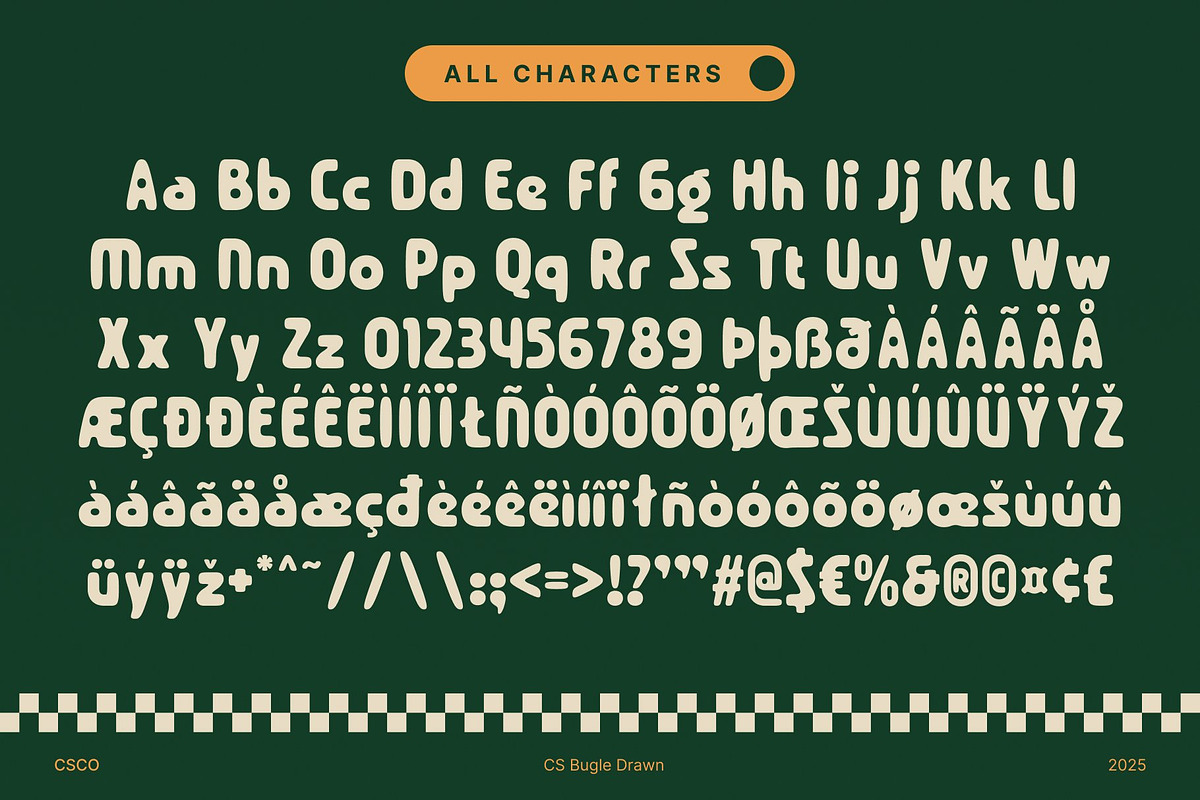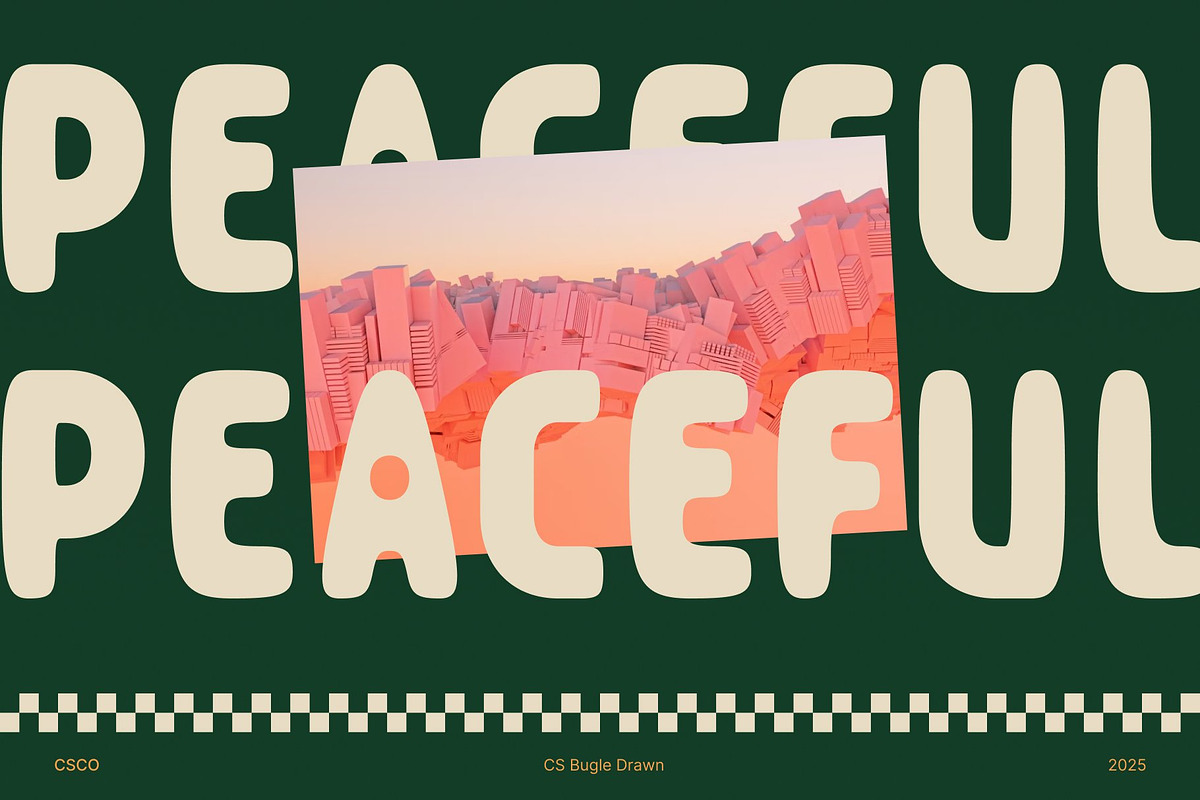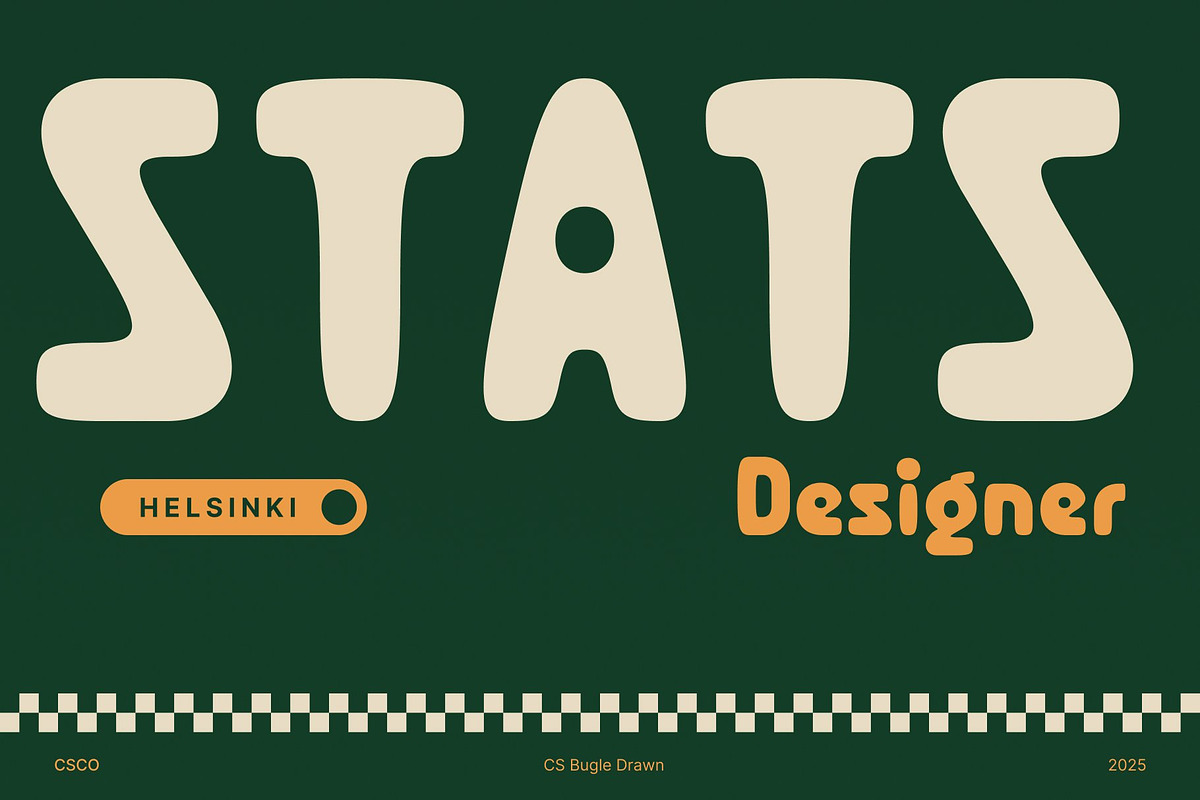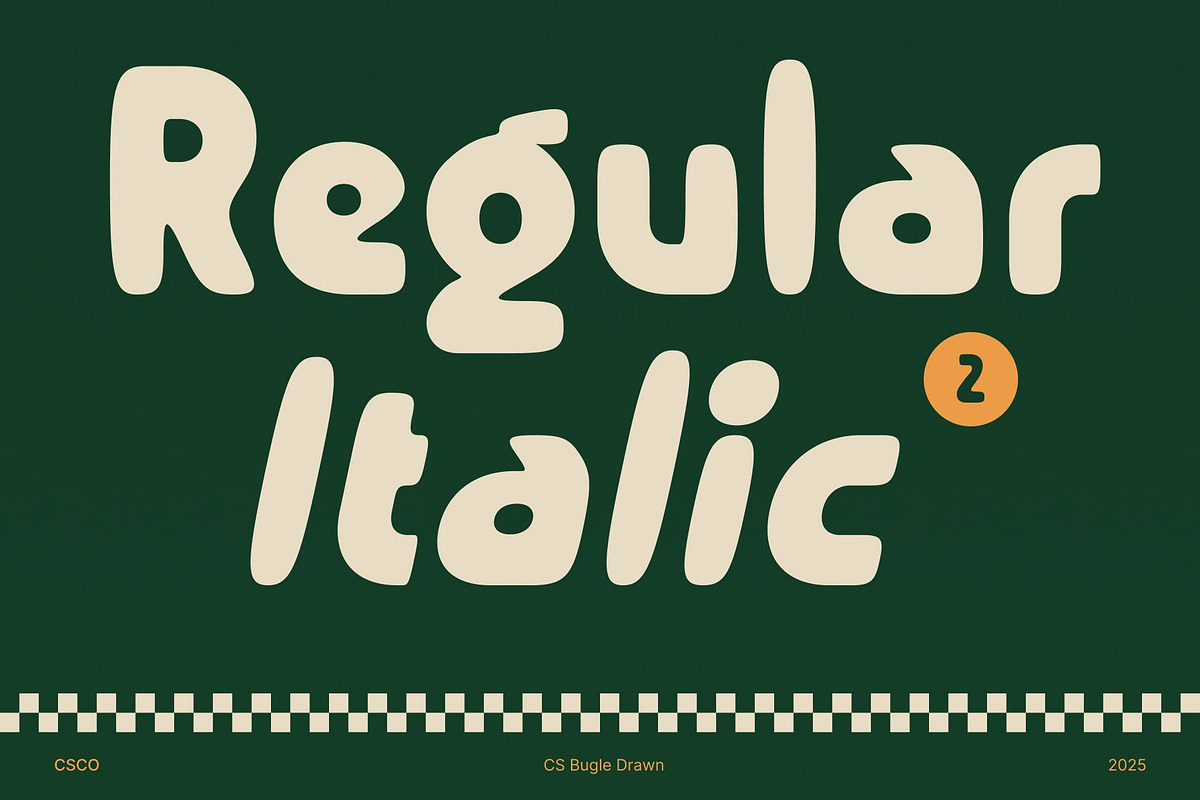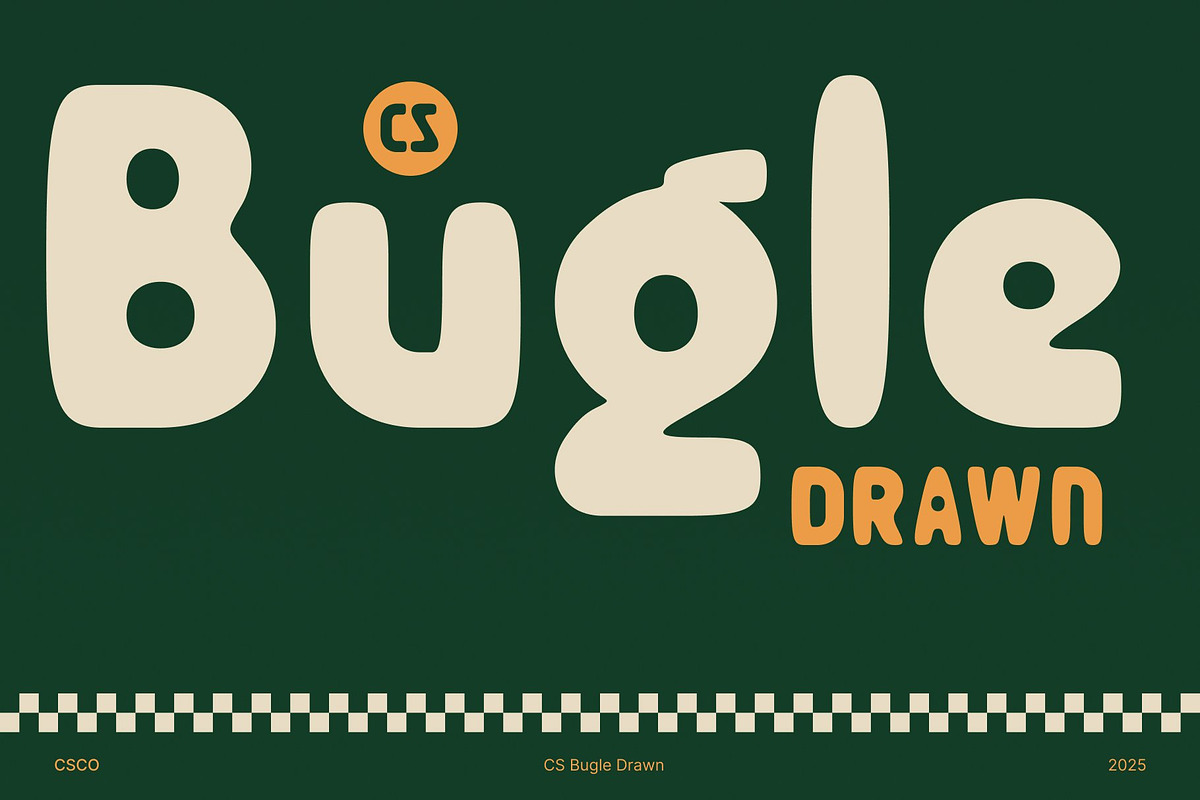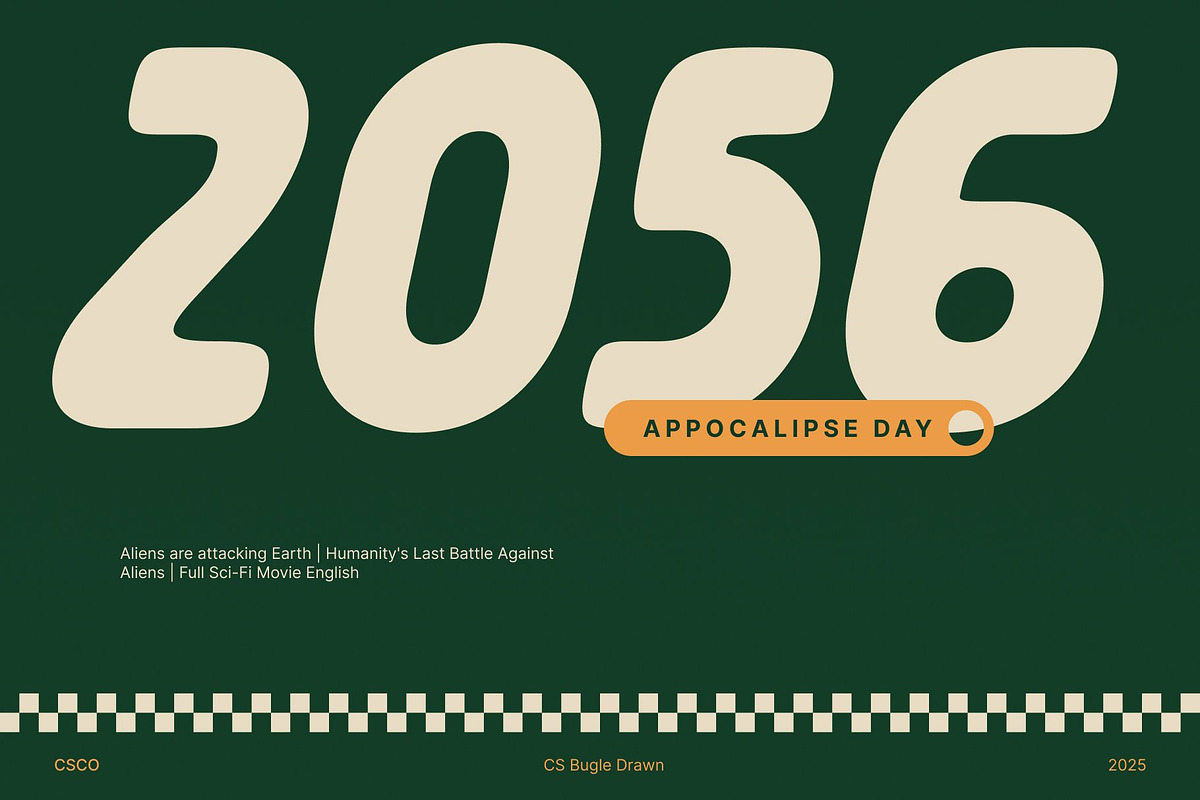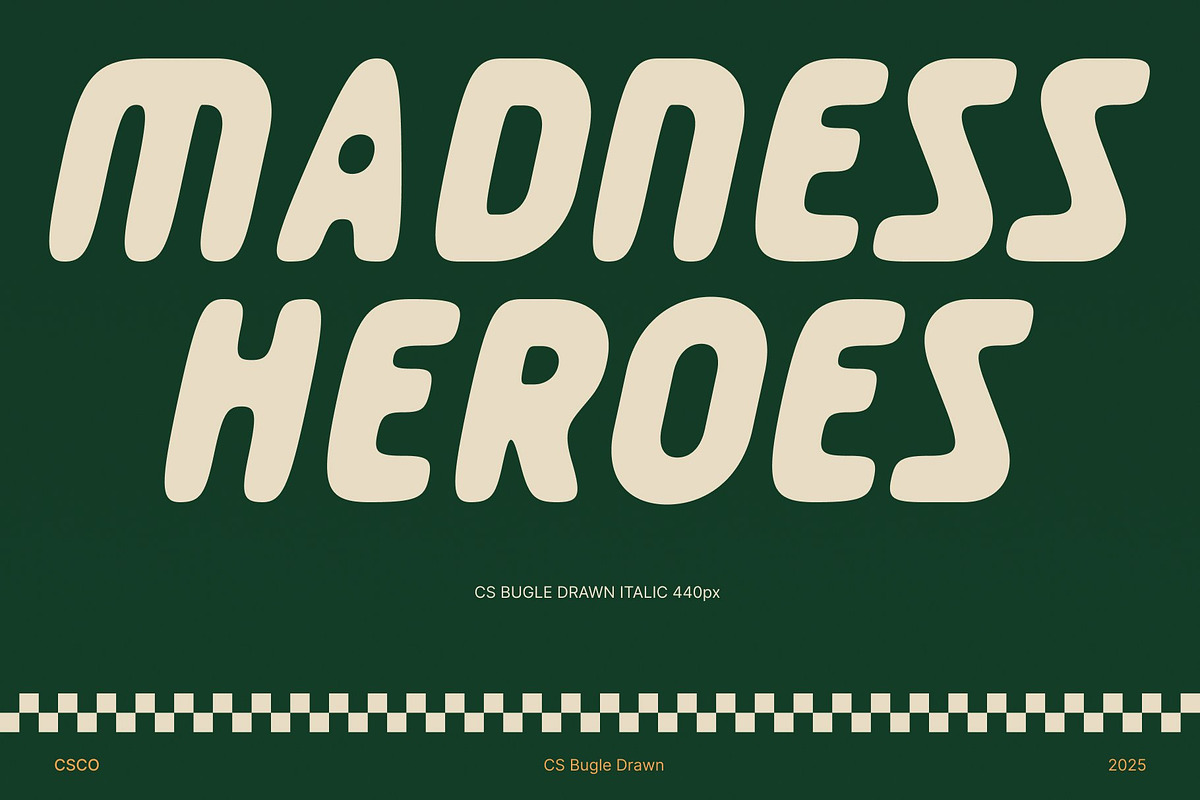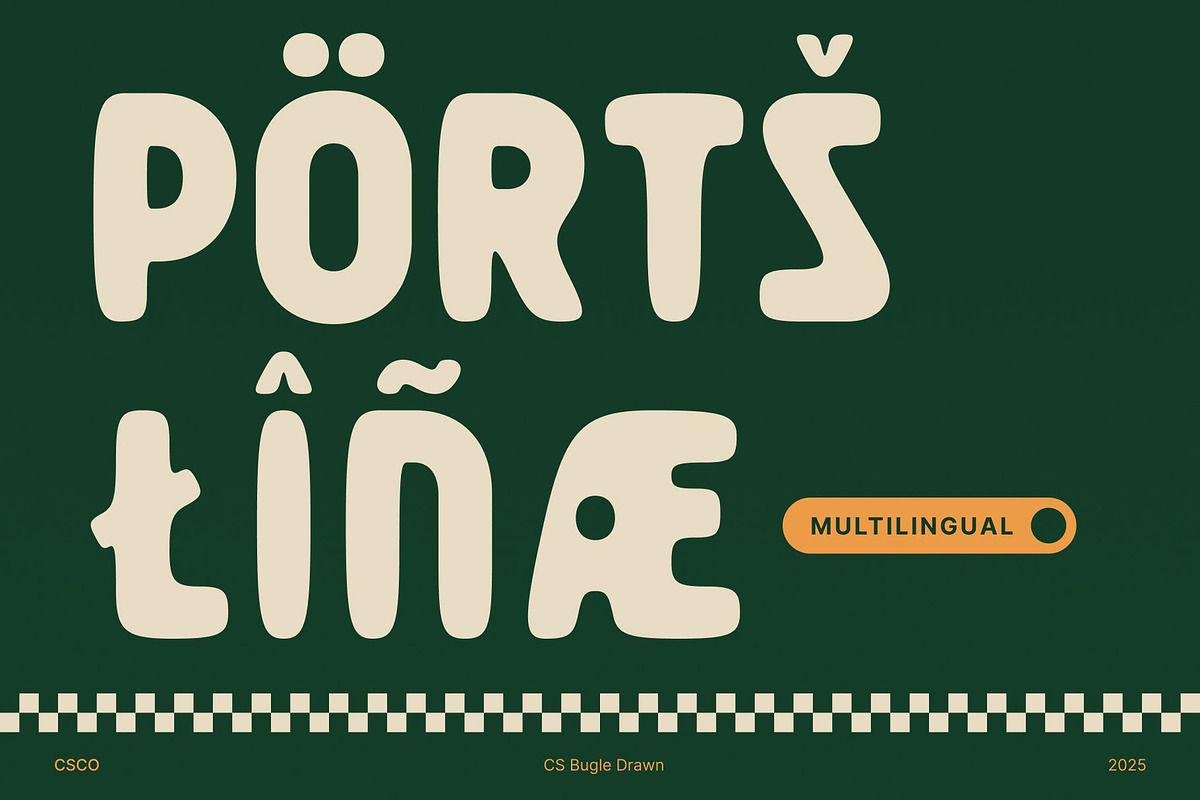
CS Bugle Drawn
CS Bugle Drawn – Bold Strength with Artistic Energy
Hand-Drawn Display Font for Maximum Impact This is a bold display sans serif crafted to make a powerful statement. Its solid, confident letterforms demand attention, while the hand-drawn effect infuses each shape with expressive texture and artistic warmth.
Strong Forms with Creative Character Blending bold geometry with handcrafted imperfection, this font creates a perfect balance between strength and personality. The subtle drawn details give it a human touch, turning a classic sans serif structure into something dynamic and full of energy.
Versatile for Modern Visual Design With its striking presence and natural flow, this font works beautifully across various design contexts. It adapts effortlessly to bold headlines, creative branding, and poster layouts that call for a handcrafted yet modern appeal.
Perfect for Branding, Headlines, and Poster Art Whether you’re designing impactful logos, expressive posters, or standout promotional visuals, this font delivers. Its combination of power, creativity, and texture ensures your design captures attention and leaves a lasting impression.